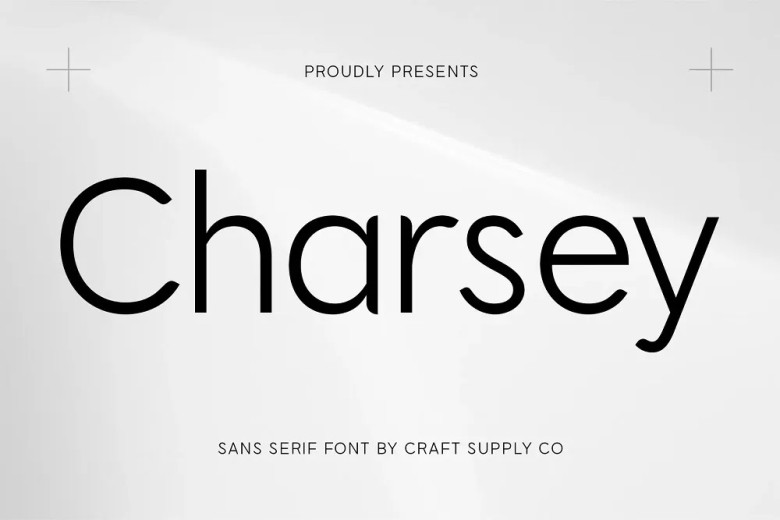
Charsey Font
Charsey is a contemporary Sans Serif font that can be used for business purposes, and branding purposes for instance, logos and advertisements. Its simple and elegant look gives it a professional and up to date look which is suitable for projects that need a clean look.
Charsey font can be used for branding purposes, editorial design and advertising or any other related business activities. Because of the features of its simplicity and legibility, it is perfect for designers seeking for a minimalistic style.
Charsey Sans Serif Font